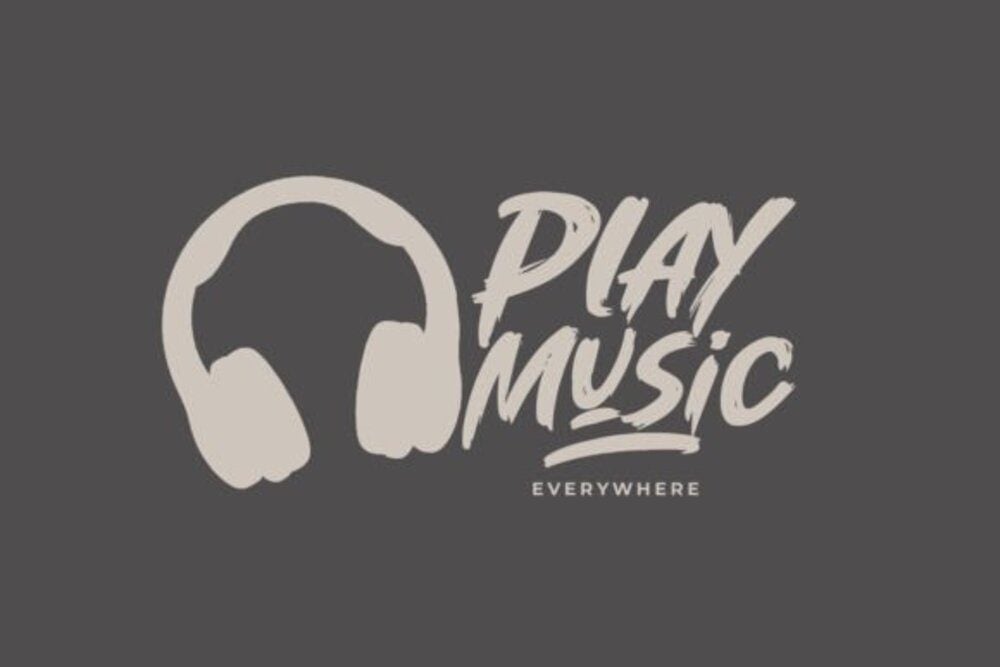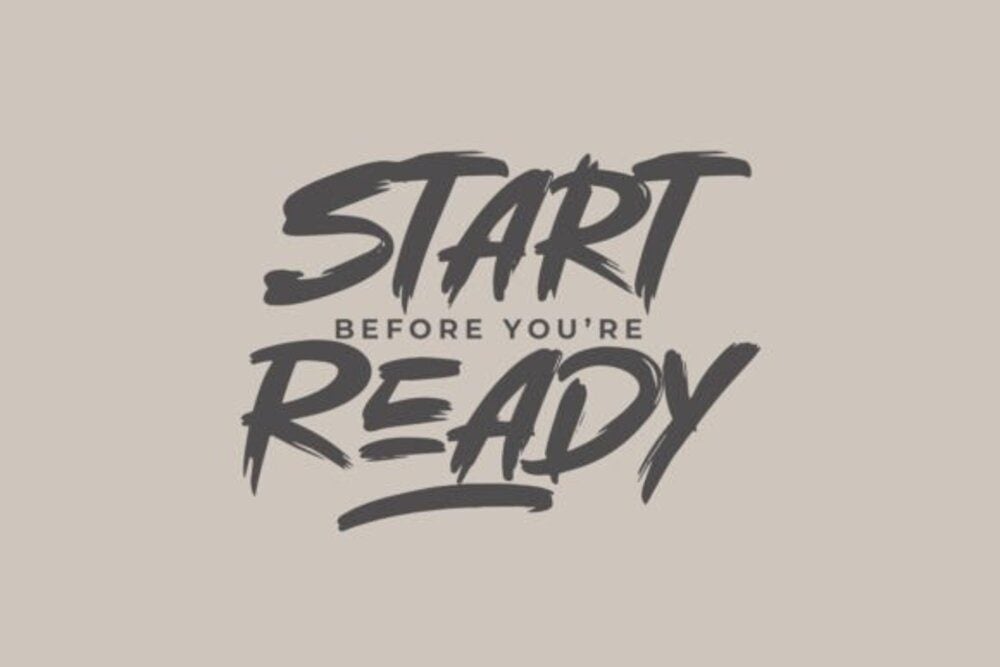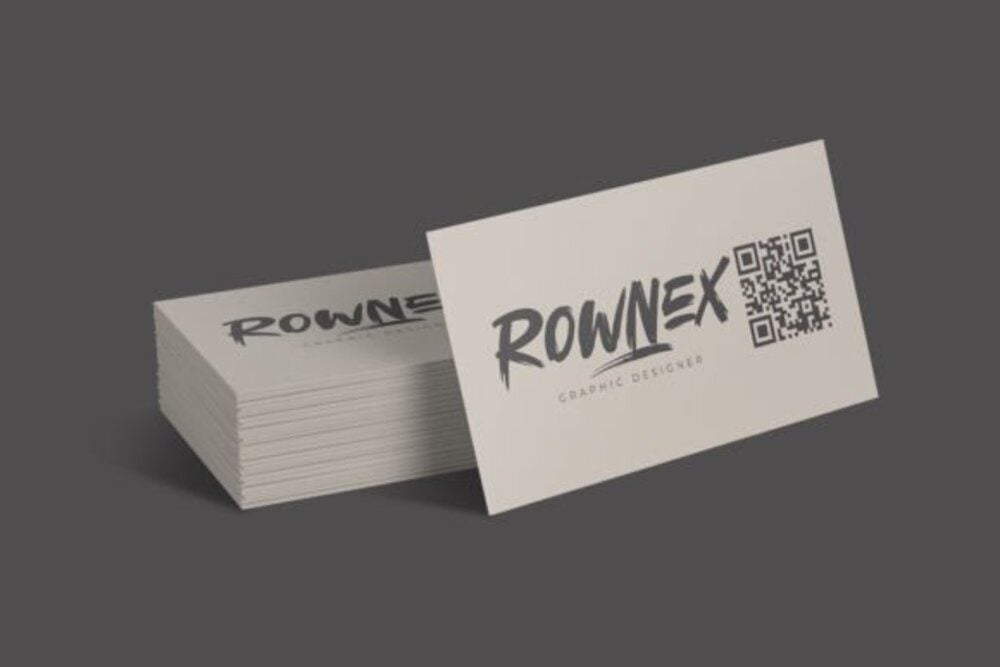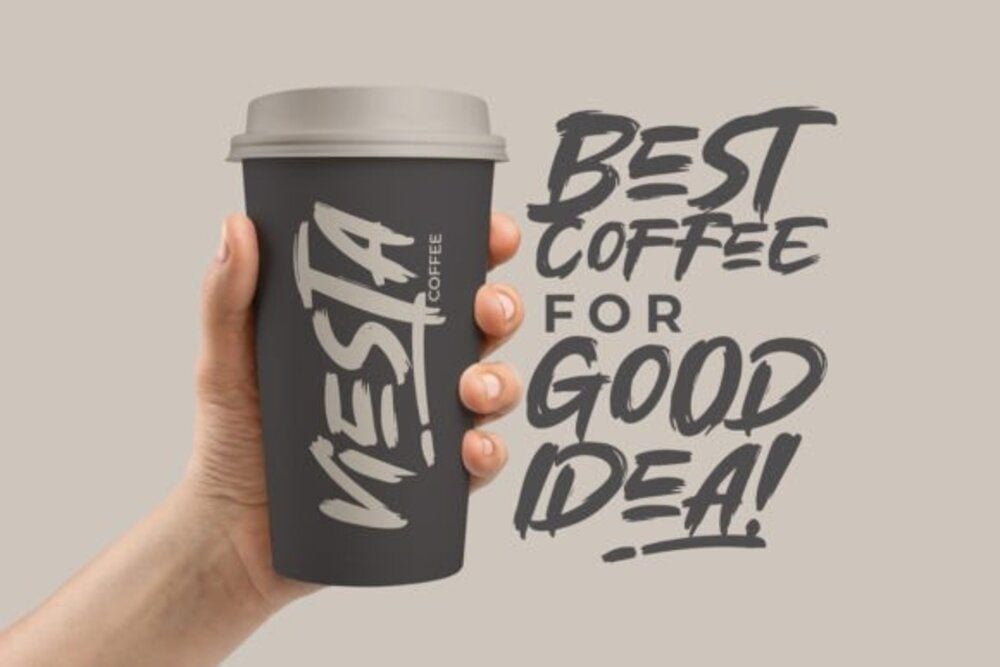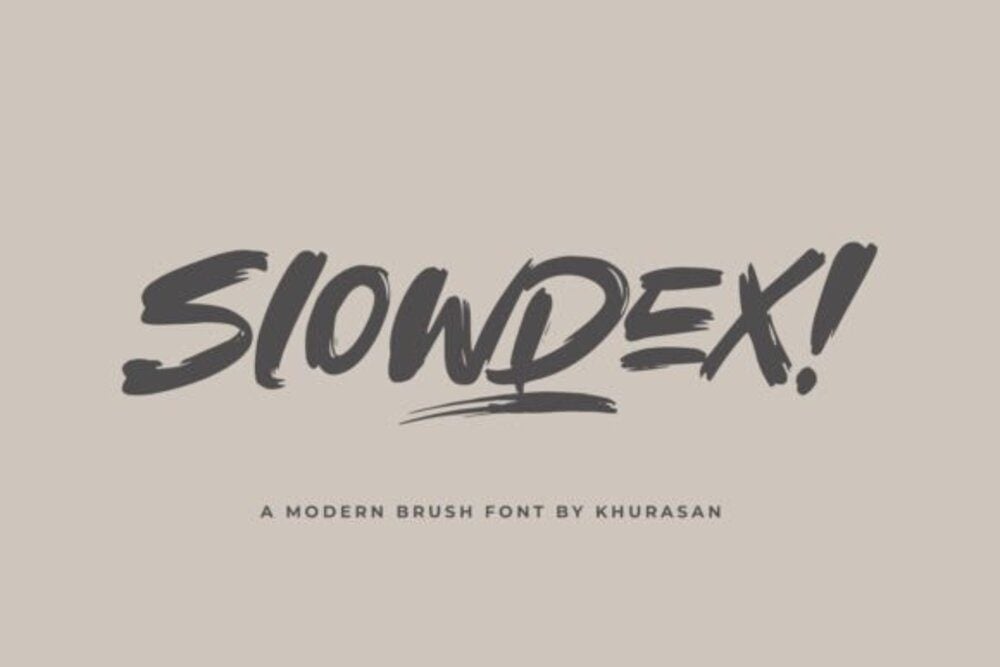
Slowdex Font
Slowdex is a sleek and modern font with a refined, minimalist design. Its clean lines and subtle curves give it a sophisticated yet approachable feel, making it perfect for high-end branding, editorial projects, and professional designs. The font’s contemporary style is versatile, fitting both digital and print media. With Slowdex, your designs will achieve a polished, elegant look that speaks to simplicity and style.